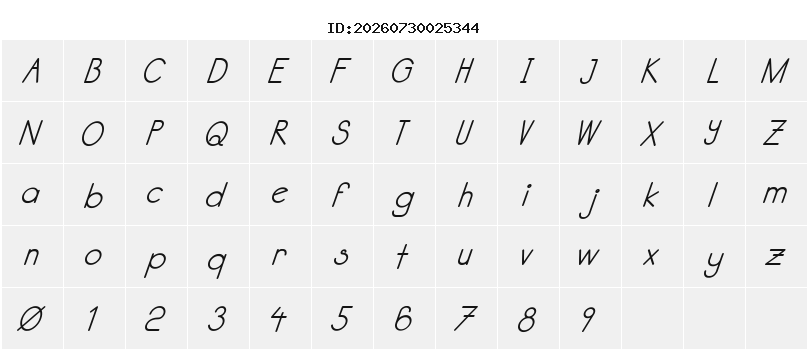
Kata Bidalan Italic Bold Preview
• Font Name: Kata Bidalan Italic Bold
• Full Font Name: Kata Bidalan Italic Bold
• PostScript Name: KataBidalanItalicBold
• Designer: cenz qobbal
• Manufacturer: cenz qobbal
About Kata Bidalan Italic Bold.ttf
Kata Bidalan Italic Bold.ttf is a modern, elegant sans-serif font designed for ultimate readability and visual harmony. Perfect for branding, headlines, web design, and print materials.